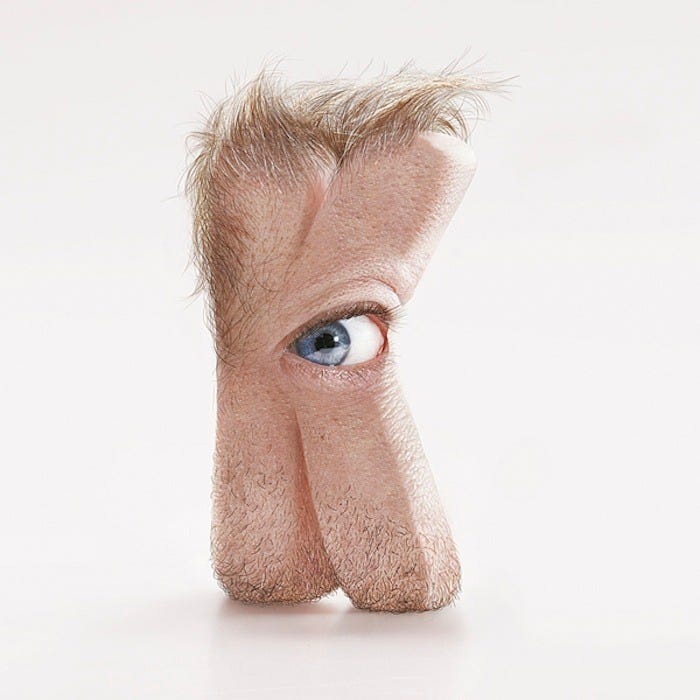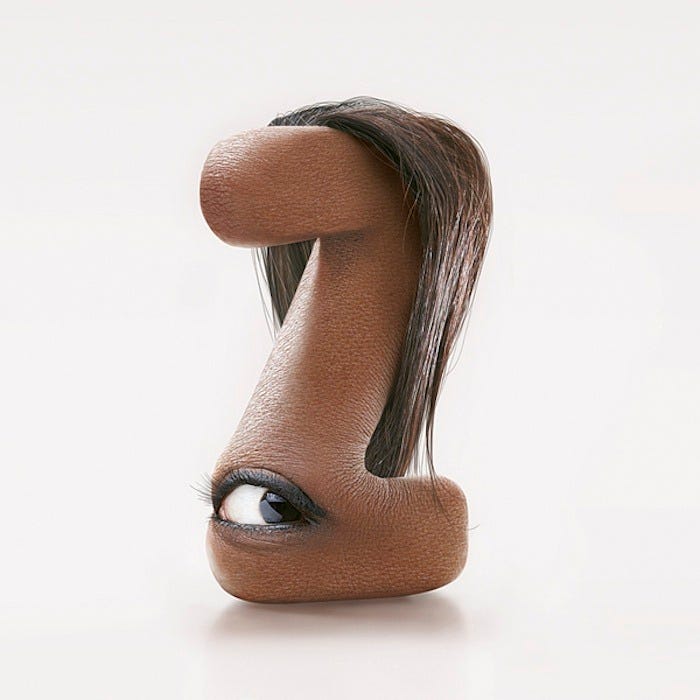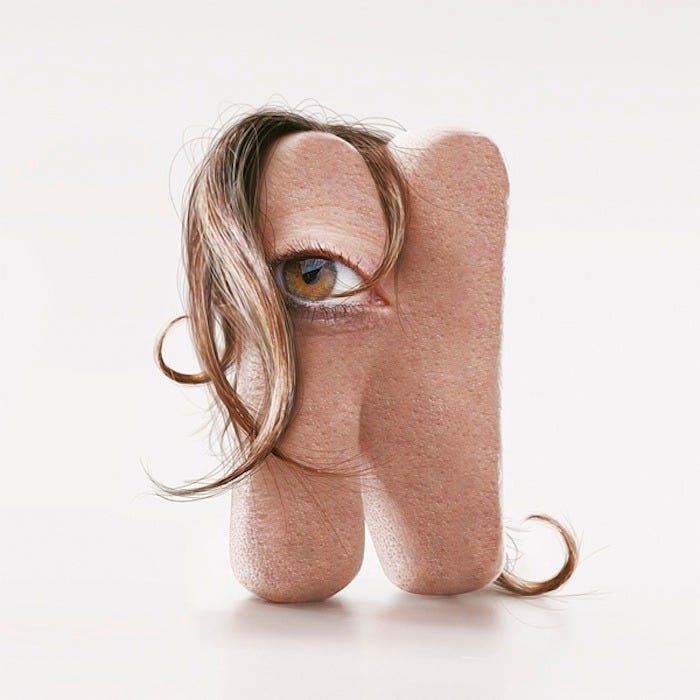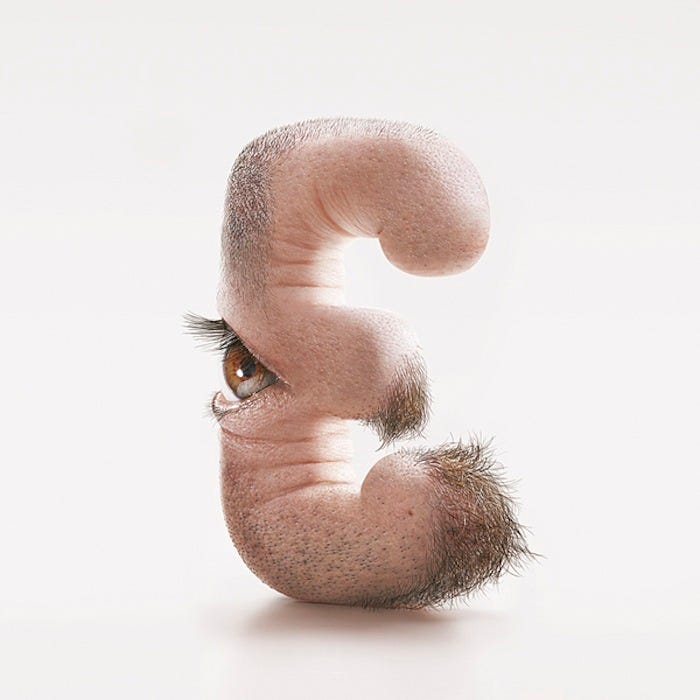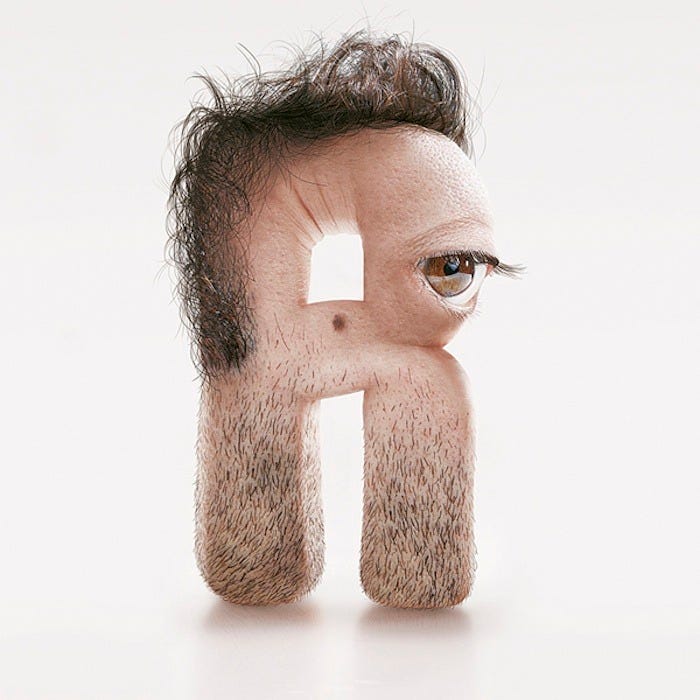
This Human Font is Totally Freaky
We’re very specific about the fonts we use at The Bold Italic, so we keep an eye on trends in design and creative lettering. I have to say, this collection of human-body typeface from French design team Kerozen is by far the creepiest expression of the alphabet I’ve seen. Dreamed up by creative director JC Debroize, these letters look like something a serial killer might create if he had an impressive design pedigree. And I can’t stop looking at them, even as they stare back at me.
Debroize, who seems to have a thing for slicing, dicing, and cutting off heads for his work, told Fast Company that he created these letters first out of clay before chopping his coworkers to pieces photoshopping his coworkers’ faces into maps of his molds.
With Valentine’s Day coming up next week, nothing says “I love you to pieces” like spelling out your sweet notes with freaky molds of stranger’s faces.